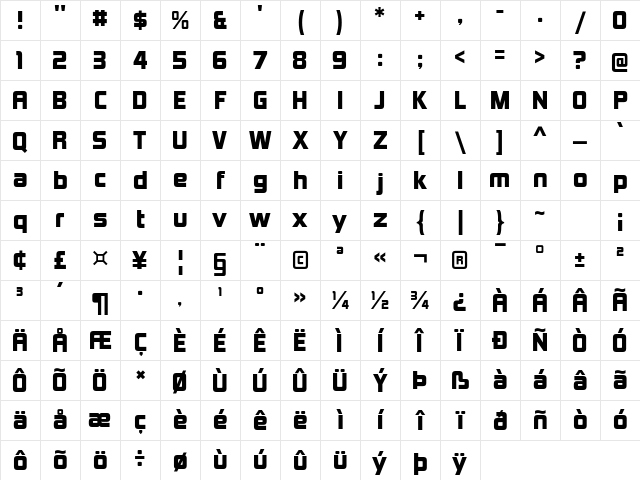
Kimberley Black
Design Context for Kimberley
Kimberley is a composed and adaptable typeface that performs quietly and consistently across a wide range of design contexts.